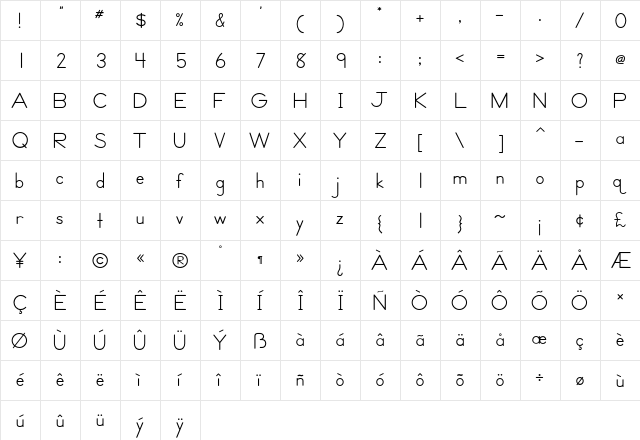
ZBPrint Regular
| Foundry | vLetter, Inc |
| Designer | vLetter, Inc. |
Design Context for ZBPrint Typeface
ZBPrint is a composed and adaptable typeface that performs quietly and consistently across a wide range of design contexts.